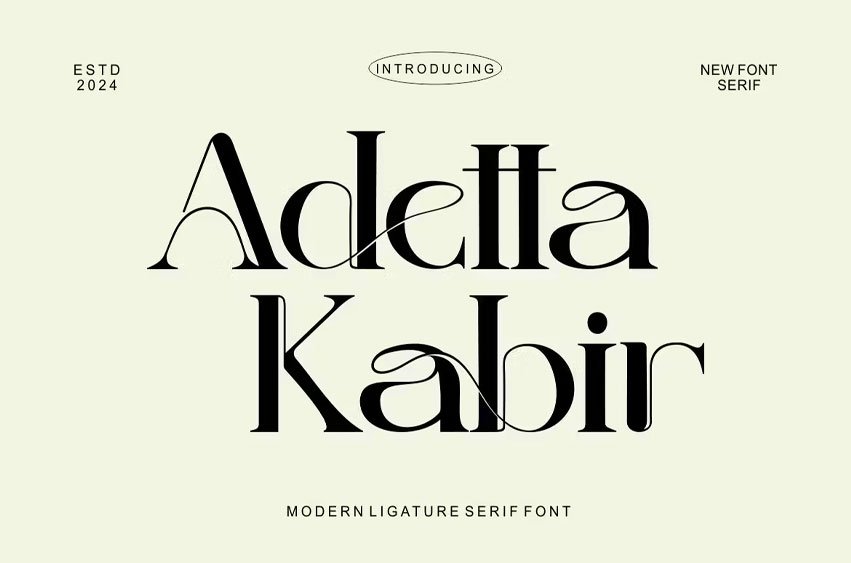
AdettaKabir Font
AdettaKabir Font ligature Serif Font is a modern and authentic font. Perfect for professional and product branding needs, this font is suitable for any branding project such as quotes, logos, blog headers, posters, ribbons, letters, invitations, stationery, etc… Designed to be versatile and flexible that can be used on a variety of projects and media. extraordinary in a variety of contexts.